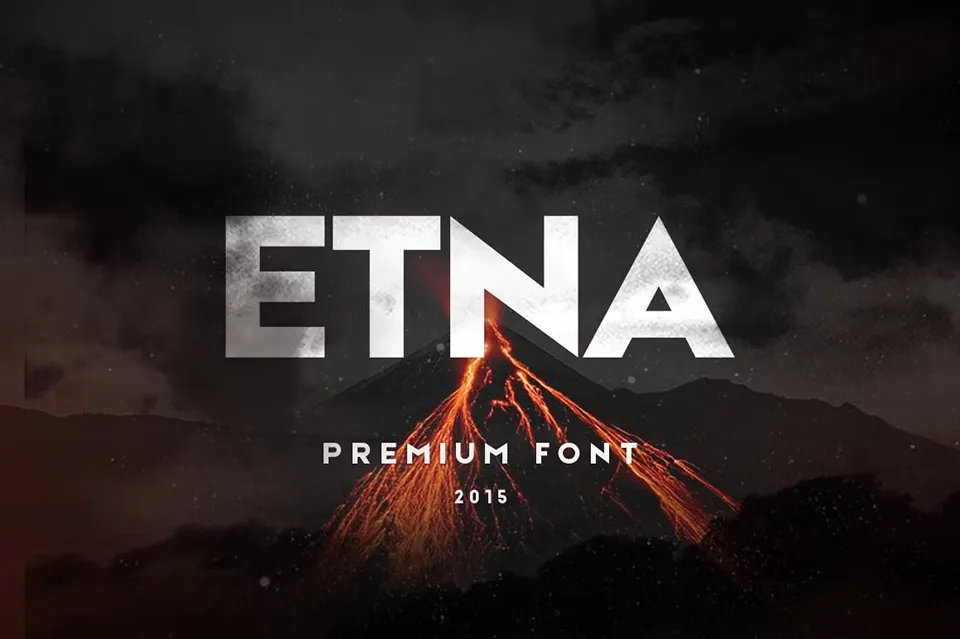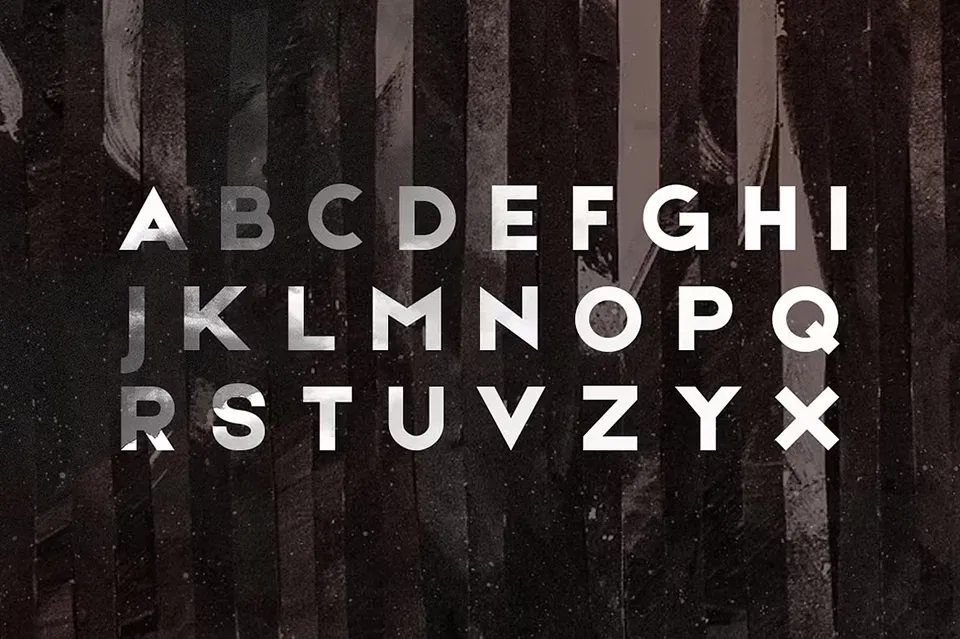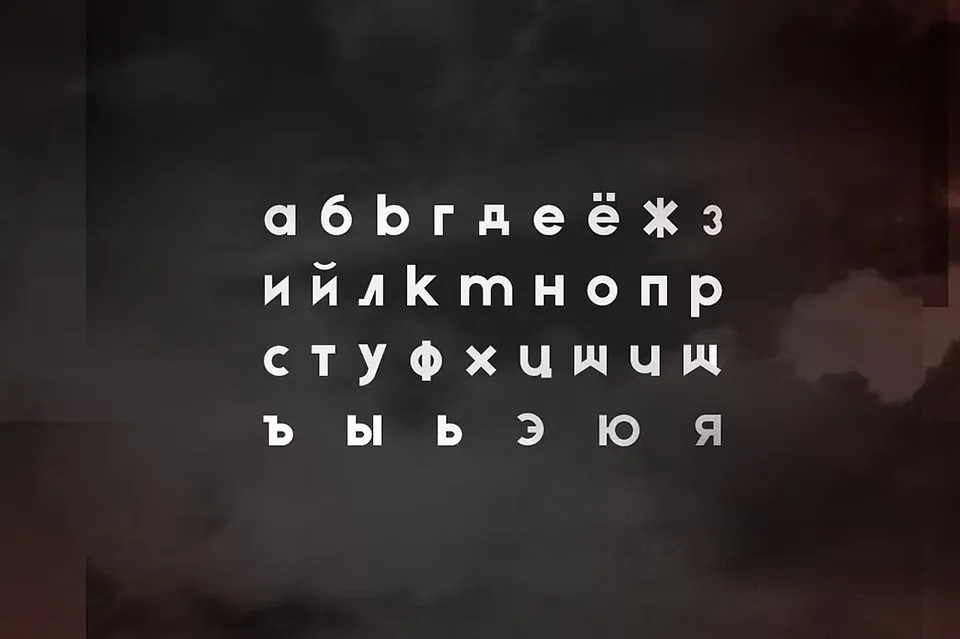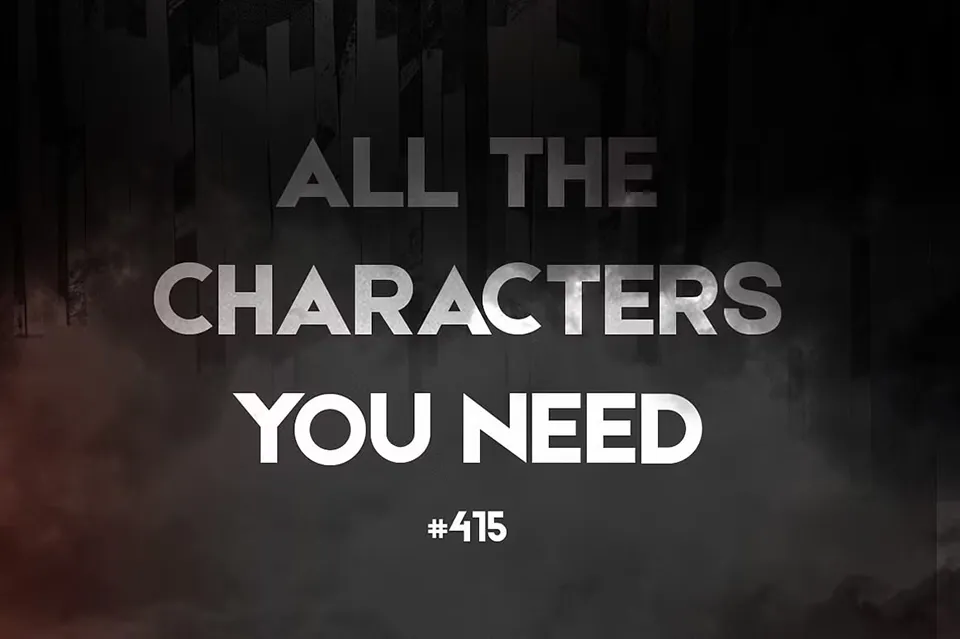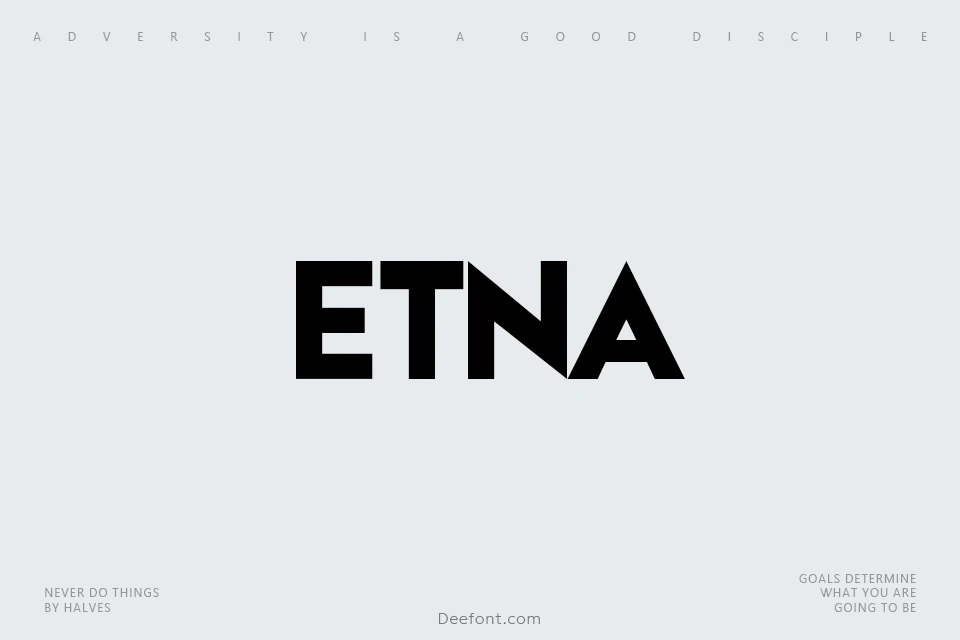
Etna Sans Serif Font
Etna Sans Serif Font is a versatile typeface available in both serif and sans-serif styles, known for its bold, geometric forms and clean readability. The serif version, designed by Mark Simonson and inspired by the Aetna wood type style of the late nineteenth century, offers a full range of six weights with matching italics, condensed widths, alternate characters, and true small caps, making it suitable for both text and display use. The sans-serif version, created by Krišjānis Mežulis and WildOnes Design, features 415 glyphs with Latin and Cyrillic support, seamless letter flow, and strong visual impact, making it ideal for large titles, posters, and modern branding58. Etna’s distinct style and comprehensive character set make it a popular choice for editorial, branding, and digital design projects.